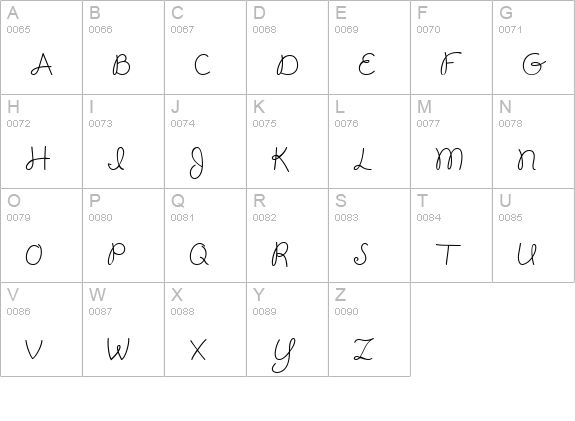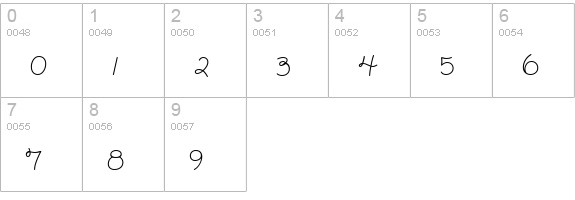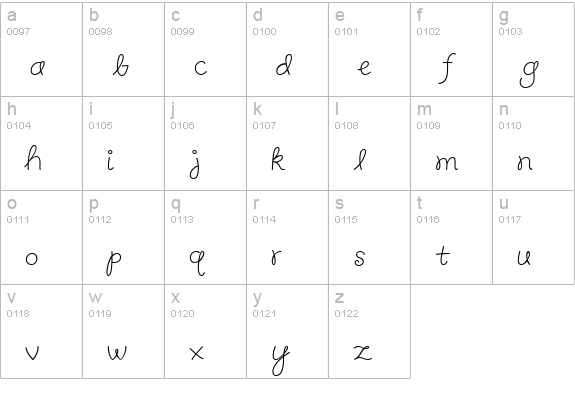
CK Pretty Font Details
Introducing CK Pretty, a charming and elegant script font that exudes sophistication and style. This beautiful font features delicate curves and flowing lines that add a touch of luxury to any design project. Perfect for invitations, branding, packaging, and more, CK Pretty is sure to make a lasting impression. The best part? CK Pretty is completely free to download at FontsMarket.com! Take advantage of this stunning font and elevate your designs with its timeless beauty and versatility. Whether you're a seasoned designer or just starting out, CK Pretty is the perfect addition to your font collection. Download it today and let your creativity shine!